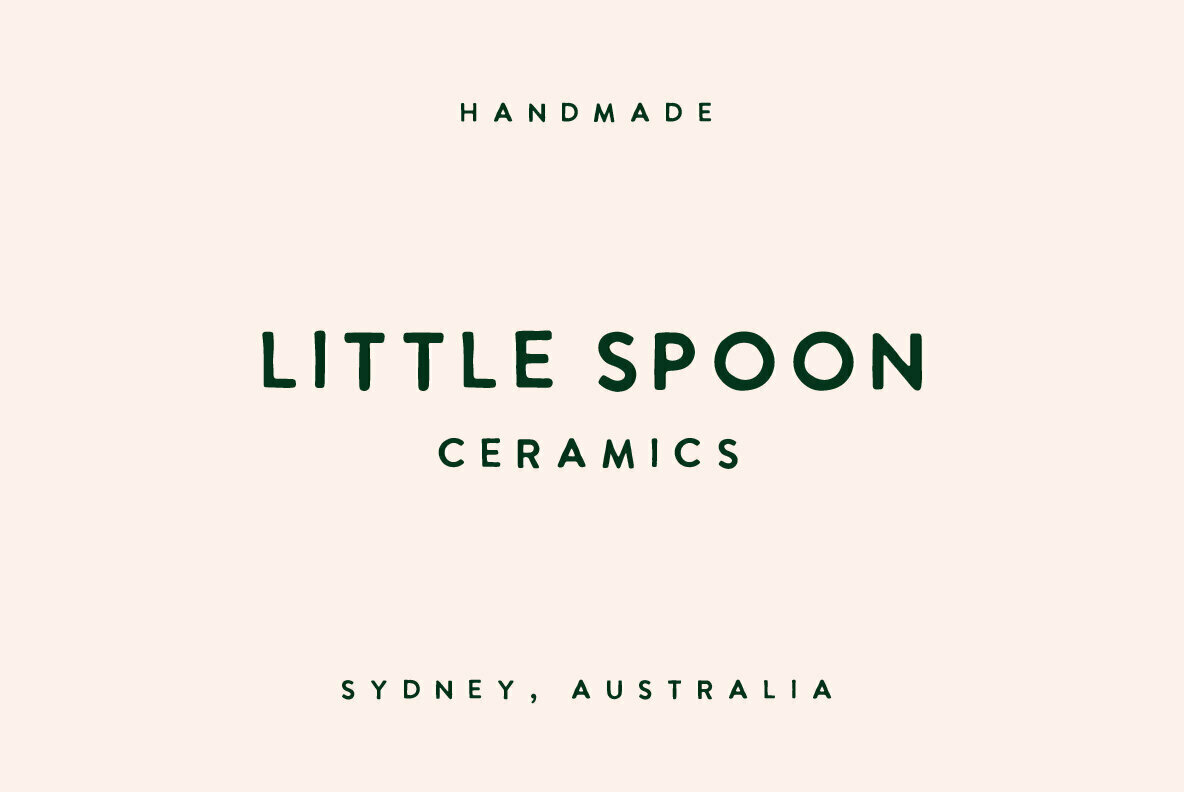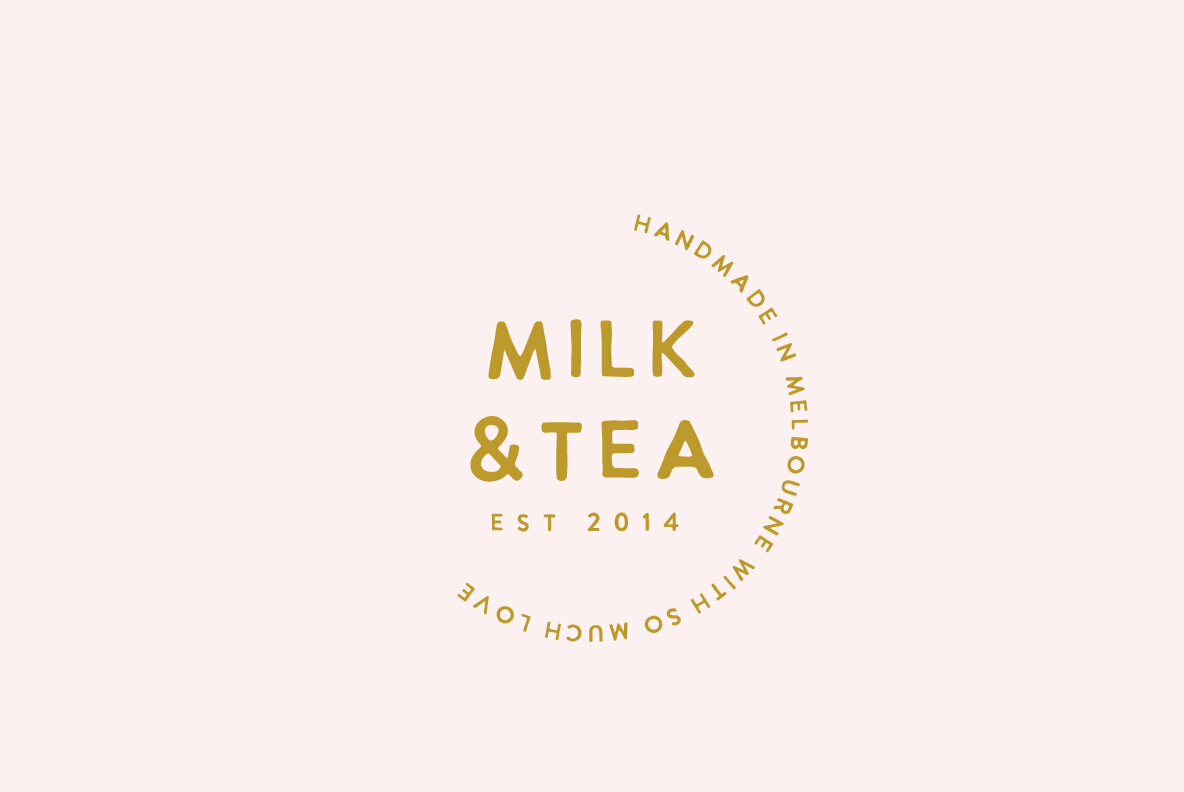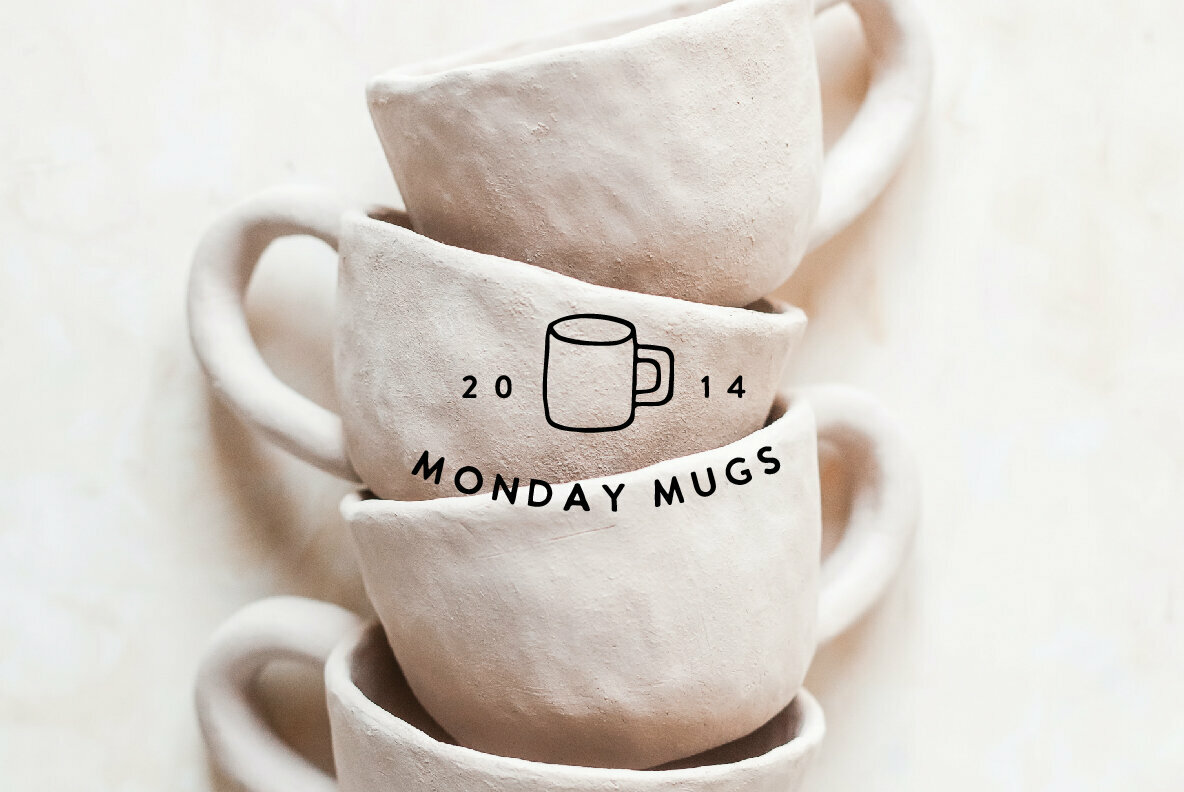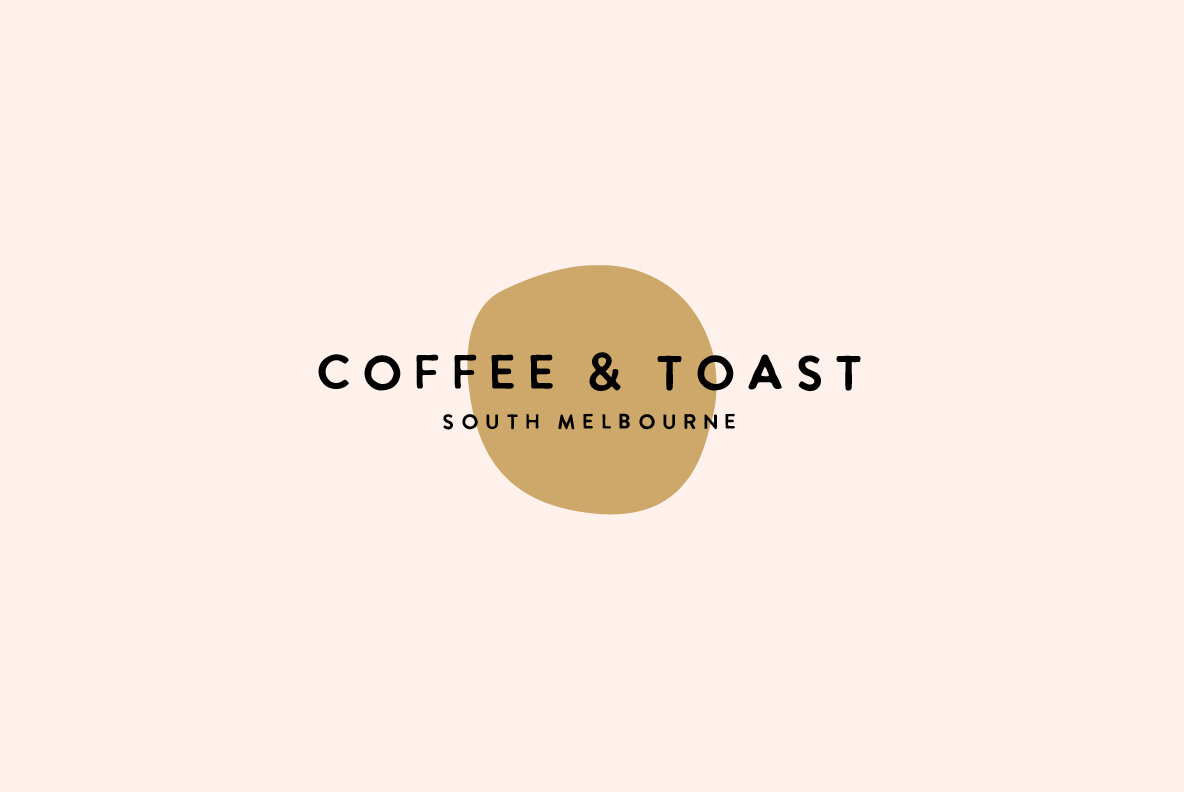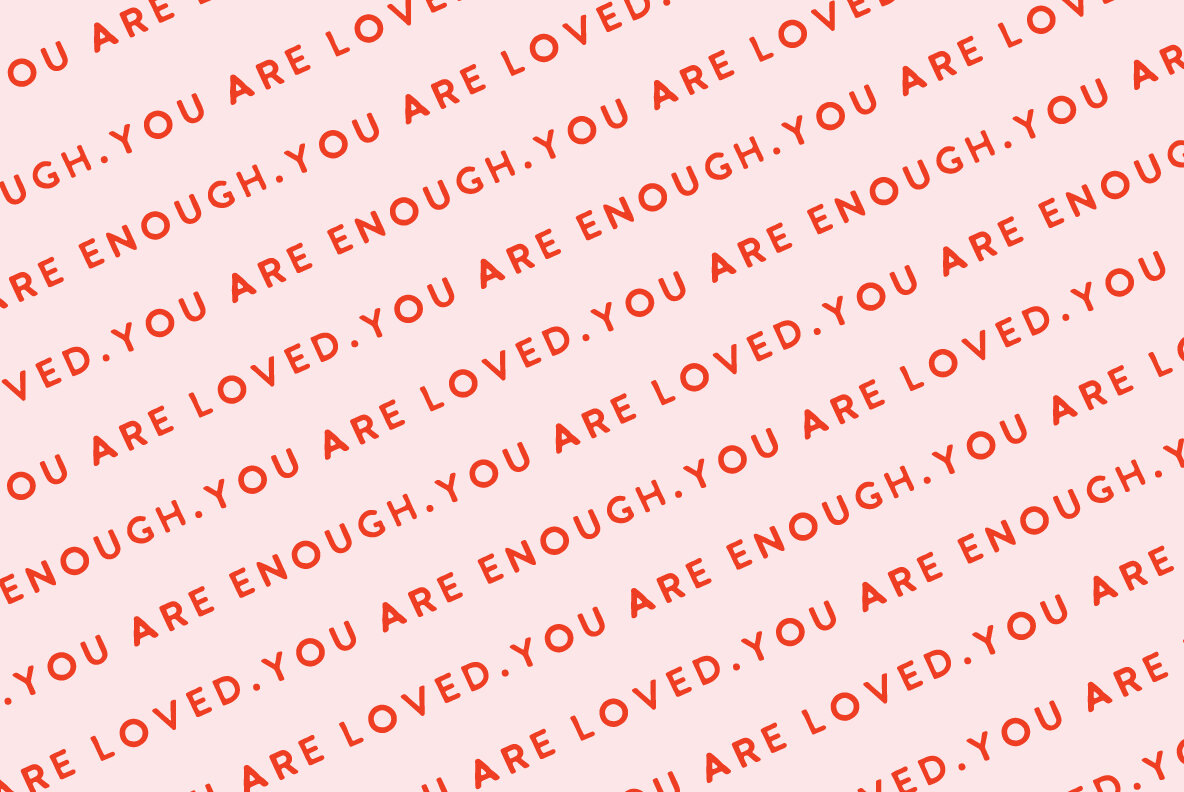
MILK and CLAY Font
MILK and CLAY offers a refreshing take on handwritten sans serif typography, blending raw authenticity with contemporary style. This font finds its ideal use in crafting brands that value artisanal charm and a personal touch. Its applicability spans across various creative domains, from capturing the essence of handmade products to enhancing the visual appeal of ceramics.MILK and CLAY: Handwritten Sans Serif Elegance